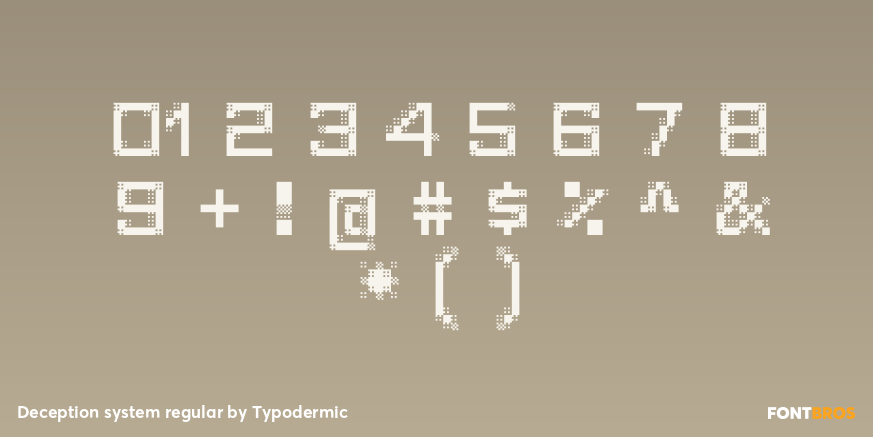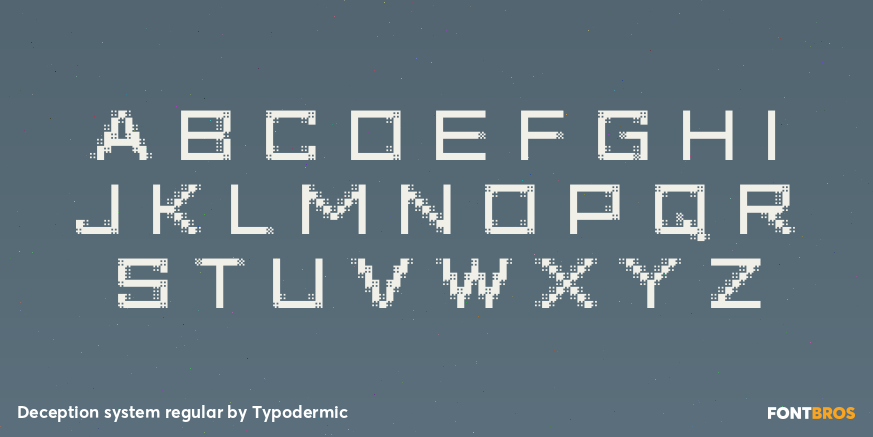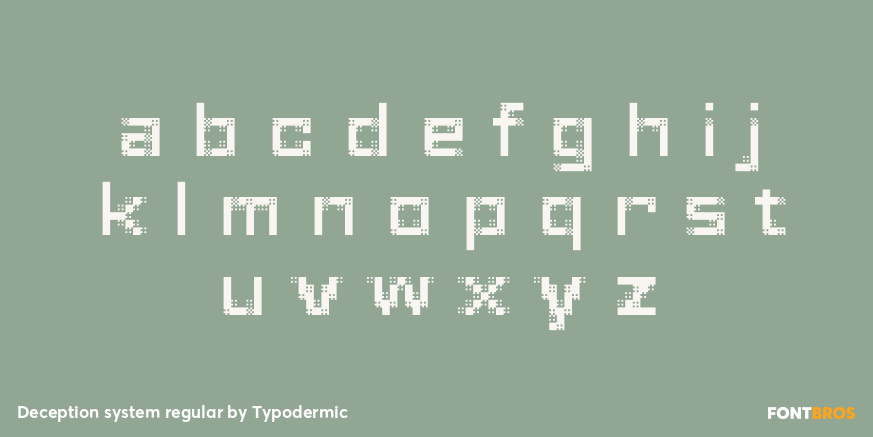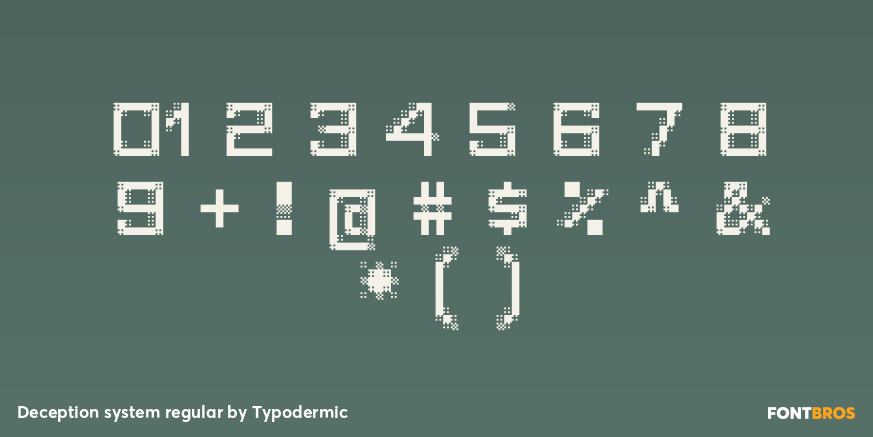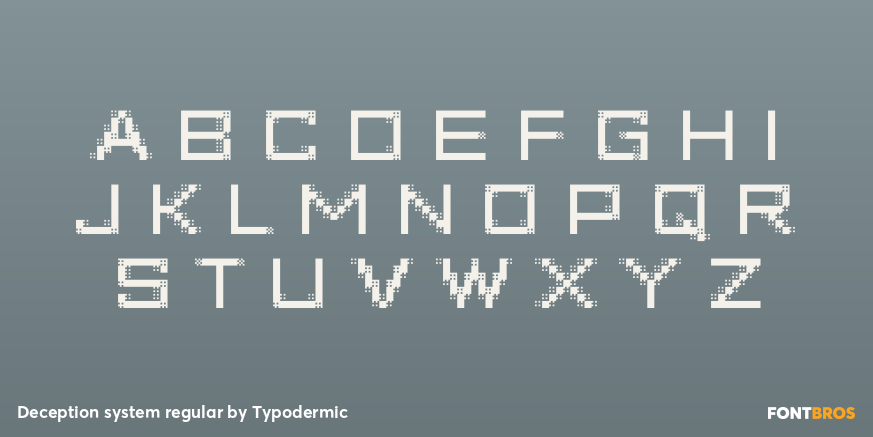
Deception system regular
Deception System turns the family’s pixel logic into a dense technical pattern that feels generated by a machine rather than drawn by hand. It suits subjects where the image is part of a larger diagnostic, computational, or security system and the process itself should remain slightly opaque.
Use System for cybersecurity branding, automated-inspection equipment, forensic software, research-lab identities, encrypted-media stories, technical exhibitions, and speculative interfaces. Regular and Bold maintain the same machine-made vocabulary across secondary headings and primary display text.